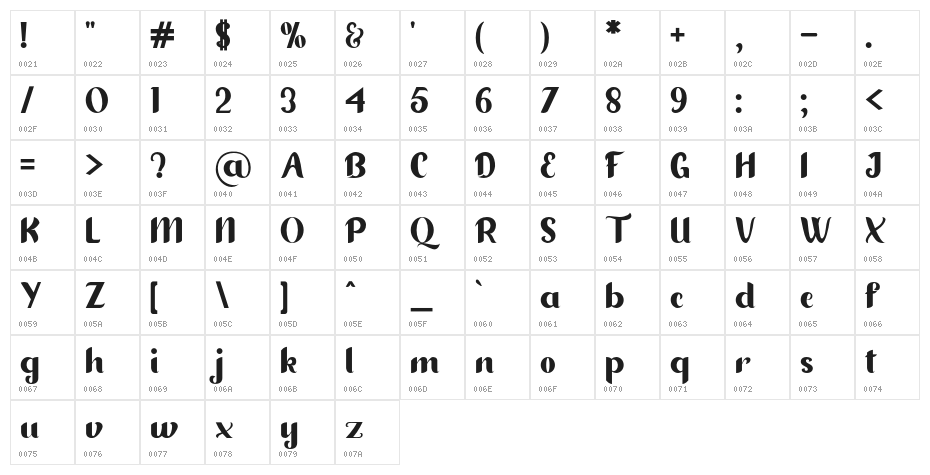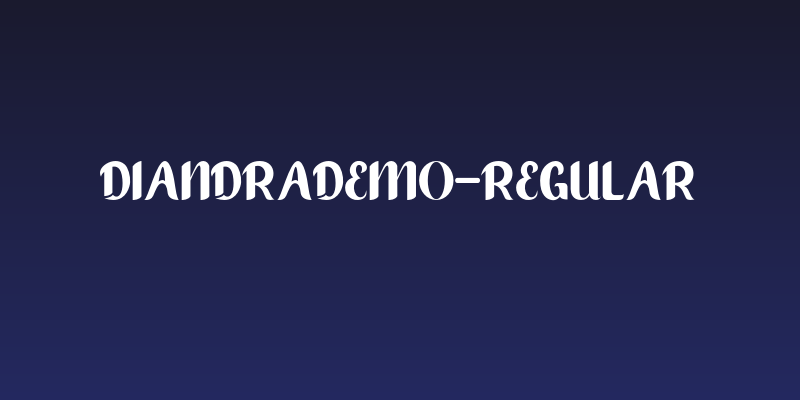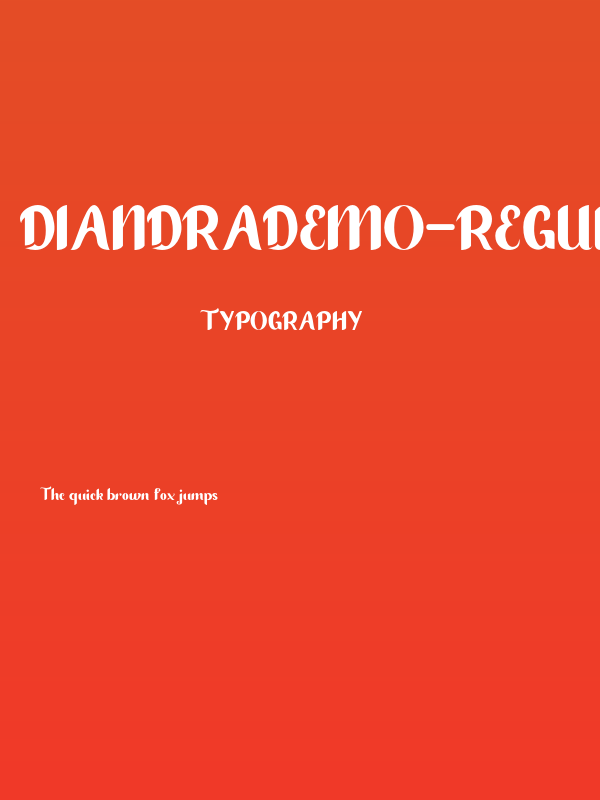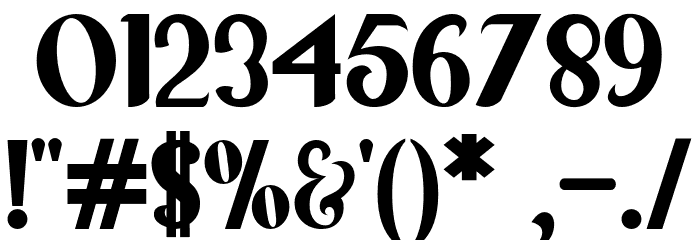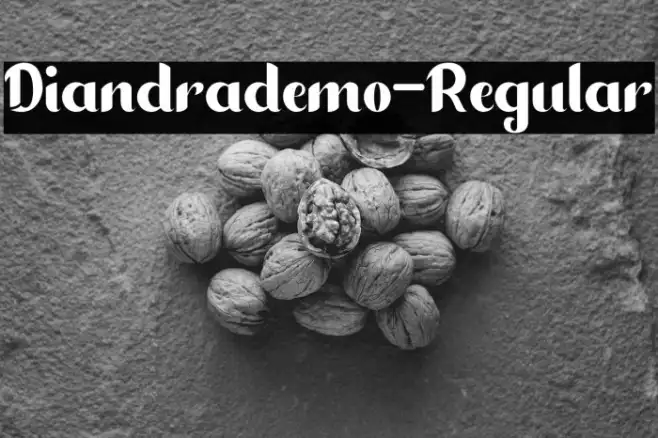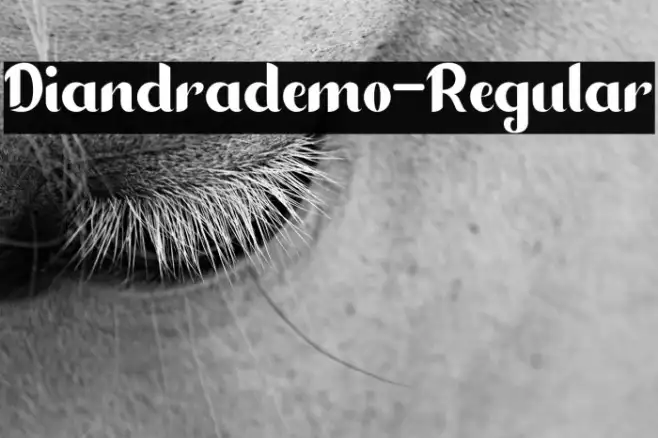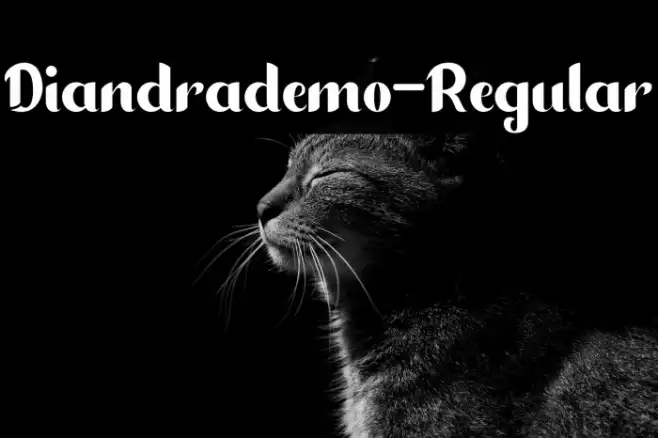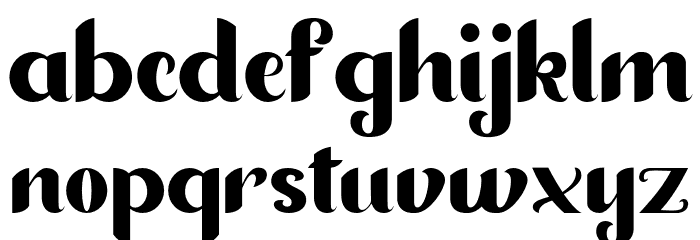
Diandrademo-Regular Font
Diandrademo-Regular Description
This font features a bold and expressive style with a strong presence. The uppercase letters have a unique flair, with some characters displaying elegant curves and others showcasing sharp, angular elements. The lowercase letters maintain a consistent weight, offering a harmonious blend of curves and straight lines. The numbers are bold and clear, ensuring readability. Special characters are designed with the same attention to detail, adding to the font's overall cohesive look. This font's distinctive style makes it suitable for projects that require a touch of elegance and boldness.
| Proposed Projects | Ideal for branding, headlines, posters, and invitations. |